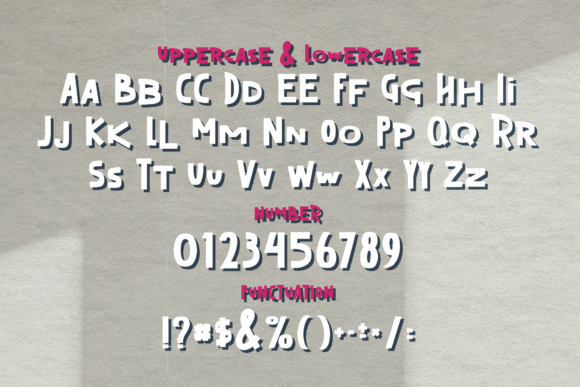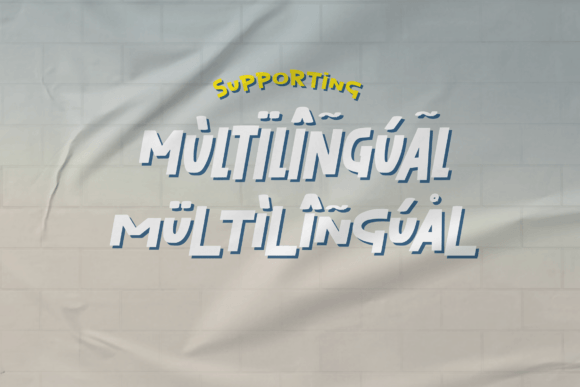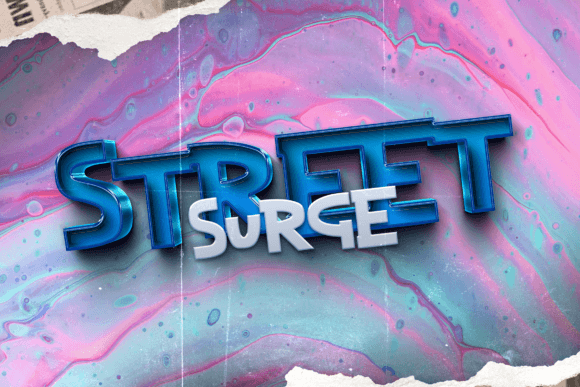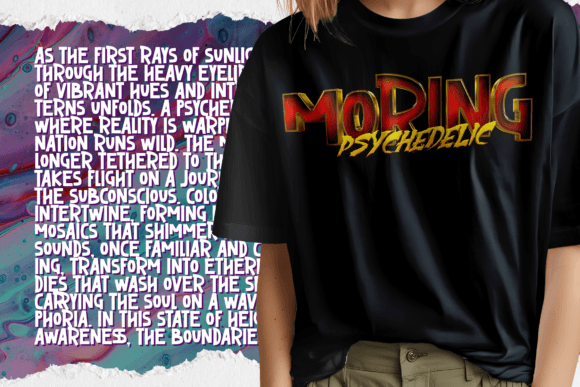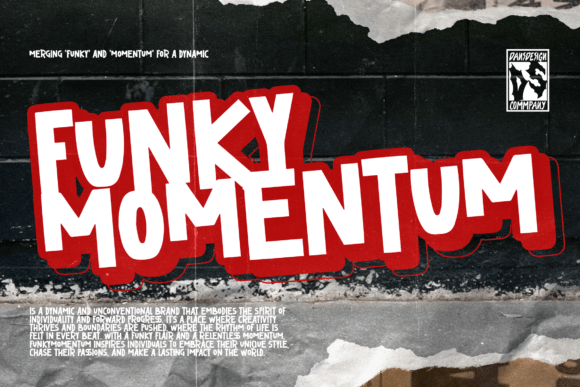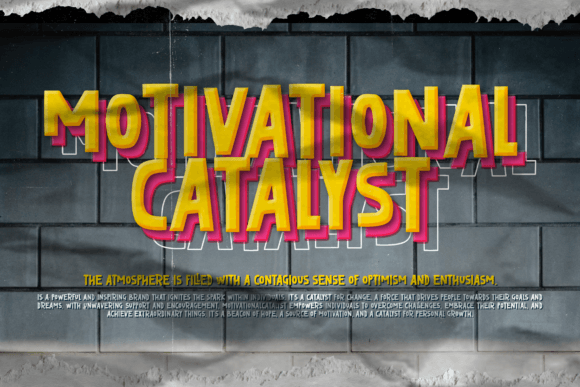
Catalyst Legion Font: Unleash Your Creativity with The Ultimate Graffiti Marker
Are you a street artist, designer, or crafter looking for a reliable and vibrant marker to take your creativity to the next level? Look no further than The Catalyst Legion Graffiti Marker Y2K. This bold and easy-to-use marker is specifically designed for street art and tagging, making it the perfect tool for those who want to make a statement.
Key Features of The Catalyst Legion Graffiti Marker Y2K
The Catalyst Legion Graffiti Marker Y2K boasts a range of impressive features that make it a must-have for any artist or crafter. Some of its key features include:
- Thick Tip: The marker’s thick tip allows for wide, smooth lines that are perfect for creating bold and eye-catching graffiti.
- Vibrant Colors: The marker comes in a range of vibrant colors that are sure to make your artwork stand out.
- Y2K Inspiration: Inspired by the early 2000s (Y2K) style, this marker combines classic street art vibes with a cool, modern twist.
- Easy to Use: The marker is designed to be easy to use, making it perfect for artists of all skill levels.
The Benefits of Using The Catalyst Legion Graffiti Marker Y2K
So why choose The Catalyst Legion Graffiti Marker Y2K over other markers on the market? Here are just a few benefits of using this amazing tool:
- Unparalleled Vibrancy: The marker’s vibrant colors are sure to make your artwork pop, whether you’re creating graffiti, tags, or other forms of street art.
- Durability: The marker’s thick tip and high-quality ink ensure that your artwork will last for years to come, with minimal fading or wear.
- Versatility: The marker is perfect for a range of artistic applications, from street art and tagging to crafting and design.
- Easy to Handle: The marker’s ergonomic design makes it easy to handle and maneuver, reducing fatigue and strain.
Tips and Tricks for Getting the Most Out of The Catalyst Legion Graffiti Marker Y2K
To get the most out of your Catalyst Legion Graffiti Marker Y2K, here are a few tips and tricks to keep in mind:
- Experiment with Different Techniques: Don’t be afraid to try out different techniques and styles with your marker, from bold lines and vibrant colors to more subtle, intricate designs.
- Practice, Practice: As with any artistic tool, practice makes perfect. Take some time to get to know your marker and experiment with different techniques and styles.
- Combine with Other Media: The Catalyst Legion Graffiti Marker Y2K can be used in combination with other artistic media, such as paint, ink, or colored pencils, to create unique and interesting effects.
- Take Your Time: Don’t rush your artwork – take your time and enjoy the process of creating something new and exciting.
Who is The Catalyst Legion Graffiti Marker Y2K for?
The Catalyst Legion Graffiti Marker Y2K is perfect for a range of artists and crafters, including:
- Street Artists: The marker’s bold lines and vibrant colors make it perfect for street artists and taggers looking to make a statement.
- Designers: The marker’s versatility and ease of use make it a great tool for designers looking to add a personal touch to their work.
- Crafters: The marker’s range of vibrant colors and easy-to-use design make it perfect for crafters looking to add a pop of color to their projects.
- Students: The marker’s affordability and ease of use make it a great tool for students looking to explore their creativity.
Catalyst Legion Font: Access Download Now
| Font Name | Catalyst Legion Font |
In conclusion, The Catalyst Legion Graffiti Marker Y2K is a bold, easy-to-use marker that is perfect for street artists, designers, crafters, and anyone looking to unleash their creativity. With its thick tip, vibrant colors, and Y2K inspiration, this marker is sure to take your artwork to the next level. Whether you’re a seasoned artist or just starting out, The Catalyst Legion Graffiti Marker Y2K is a must-have tool that is sure to inspire and delight.